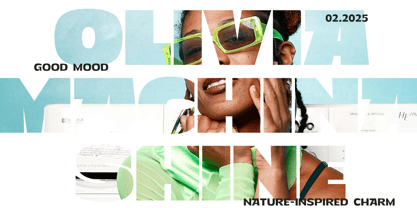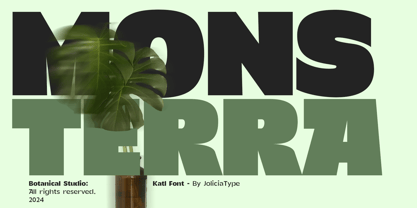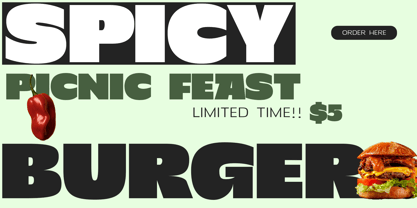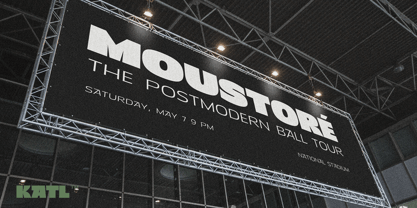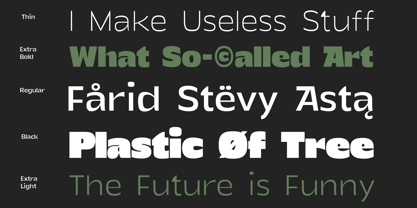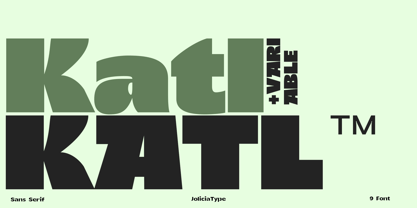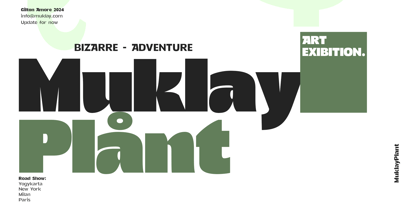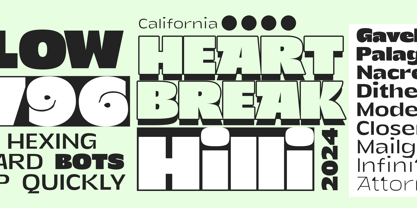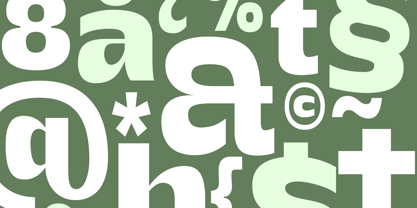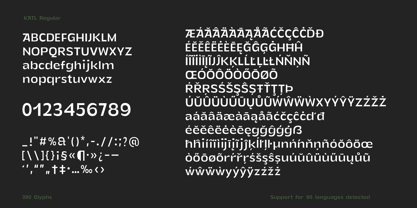
Katl
by Jolicia Type
The Katl Font Family was designed by Laire Banyu and published by Jolicia Type. Katl contains 10 styles and family package options.
Katl is a sleek and contemporary sans-serif typeface, designed with a modern aesthetic that seamlessly blends simplicity and sophistication. The font offers an impressive range of 9 weights, from the delicate Thin to the commanding Black, ensuring versatility for various design applications.
As a variable font, Katl provides dynamic flexibility, allowing users to fine-tune weights and styles for customized typographic solutions. Perfect for branding, editorial, web design, and more, Katl embodies modernity with precision and elegance.